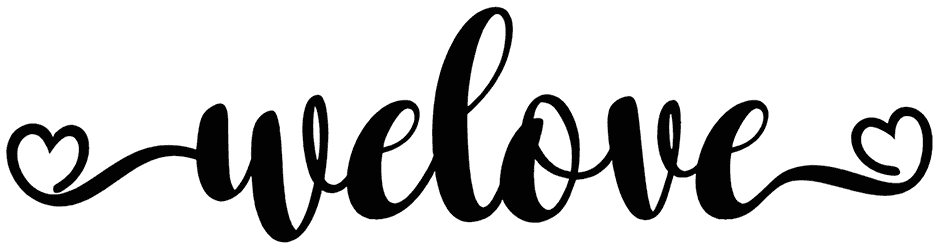
Welove Font
You may give your digital artwork a fantastic and exquisite touch by using the Welove font in your projects. This love font is perfect for producing designs for greeting cards, flyers, apparel, and banners because of its linked characters.
So get a head start with this slightly unreadable script font if you are up for the challenge, because the end result will blow the mind of your client.